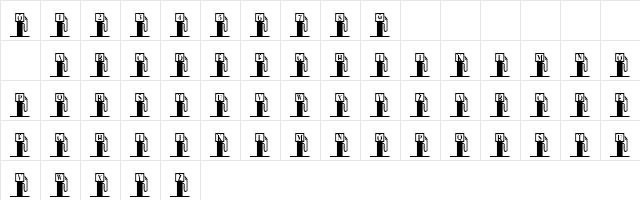
101! Unleaded Fuel Only Regular
Design Context for 101! Unleaded Fuel Only Typeface
101! Unleaded Fuel Only is a composed and adaptable typeface that performs quietly and consistently across a wide range of design contexts.